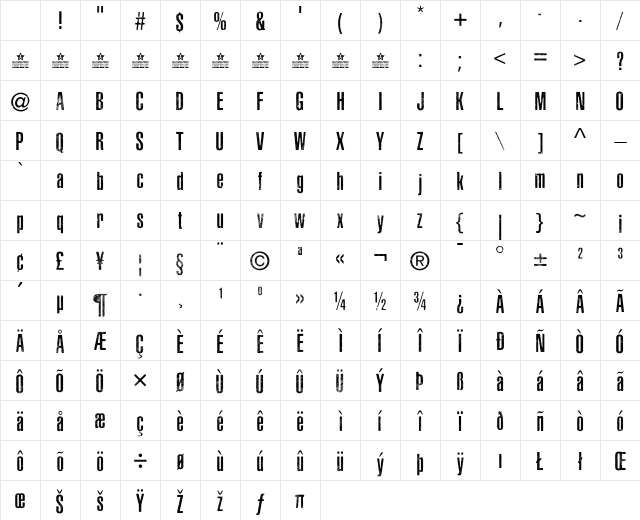
Complete ASPHALTIC SCRATCH ROUNDED PERSO Regular glyph index. Displaying only characters natively supported by ASPHALTIC SCRATCH ROUNDED PERSO Regular font.
ASPHALTIC SCRATCH ROUNDED PERSO softens its letterforms with rounded terminals, giving it an approachable, friendly quality that works well in consumer-facing and digital contexts.
Font Pairing: Pairs well with a rounded or humanist sans for body copy, maintaining the friendly tone without relying on ASPHALTIC SCRATCH ROUNDED PERSO to carry extended reading.
Pro Tip: Use ASPHALTIC SCRATCH ROUNDED PERSO for UI elements, app interfaces, and anywhere a friendly, approachable tone needs to be maintained without sacrificing clarity.